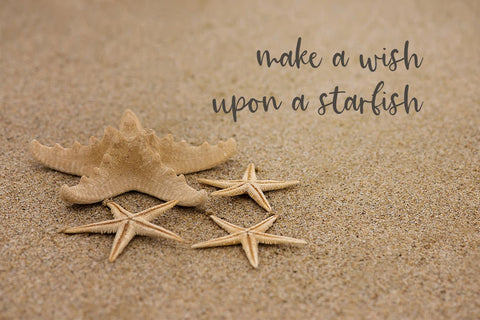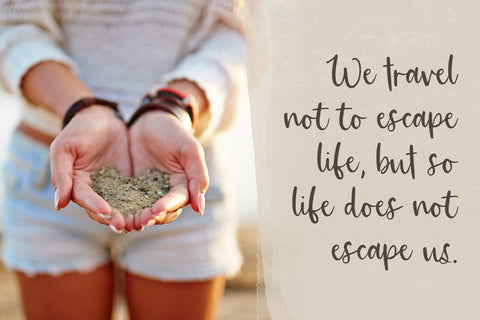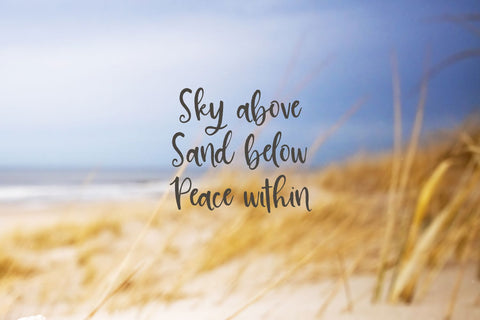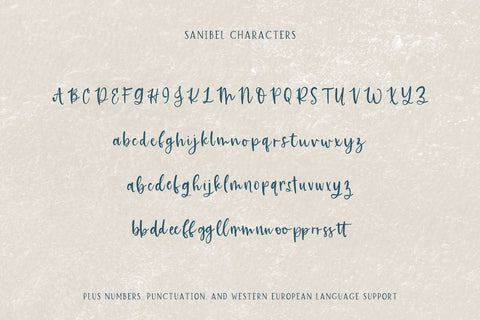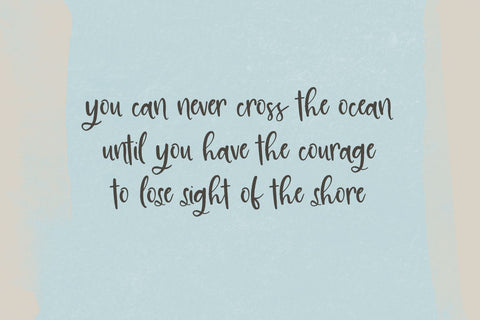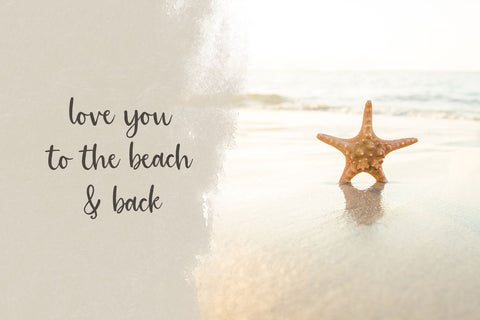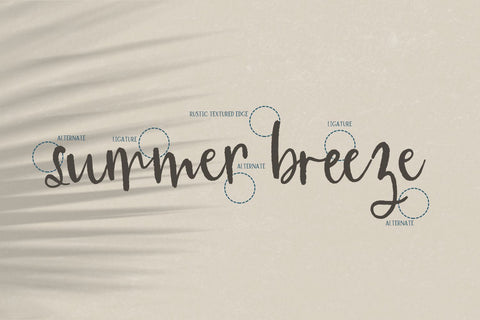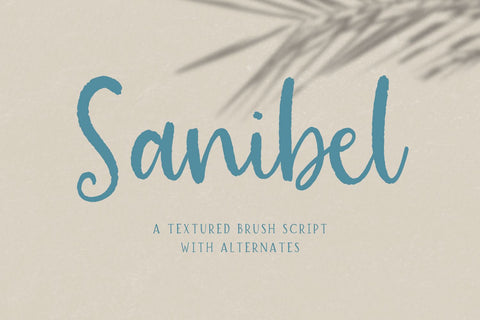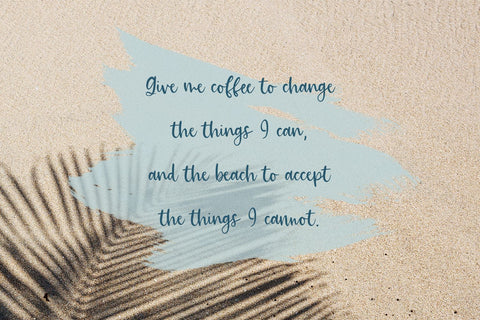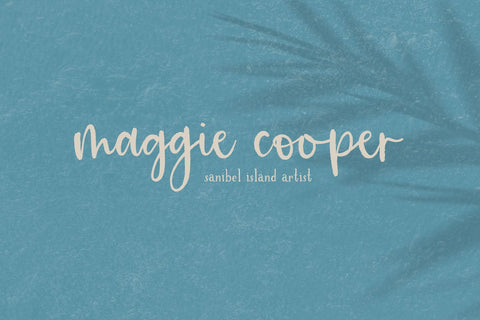
Sanibel Brush Font
Introducing Sanibel Brush Font, a new handlettered cursive font! Featuring lowercase alternates and ligatures, you can truly customize the look & feel of your text in a few simple clicks to maximize the handlettered, varied appeal. Sanibel features a bit of a textured edge, giving it a lovely rustic aesthetic.
Sanibel Brush Font is an excellent fit for:
– logos & branding projects
– print design, like magazines & flyers
– header elements + websites that need a casual, girly handwritten element
– quote graphics for social media
–
farmhouse or shabby chic projects like signage or home decor
Sanibel includes:
– full upper + lowercase characters
– numbers + punctuation
– Western European Language Support
– 26 lowercase alternates and 13 double-letter ligatures